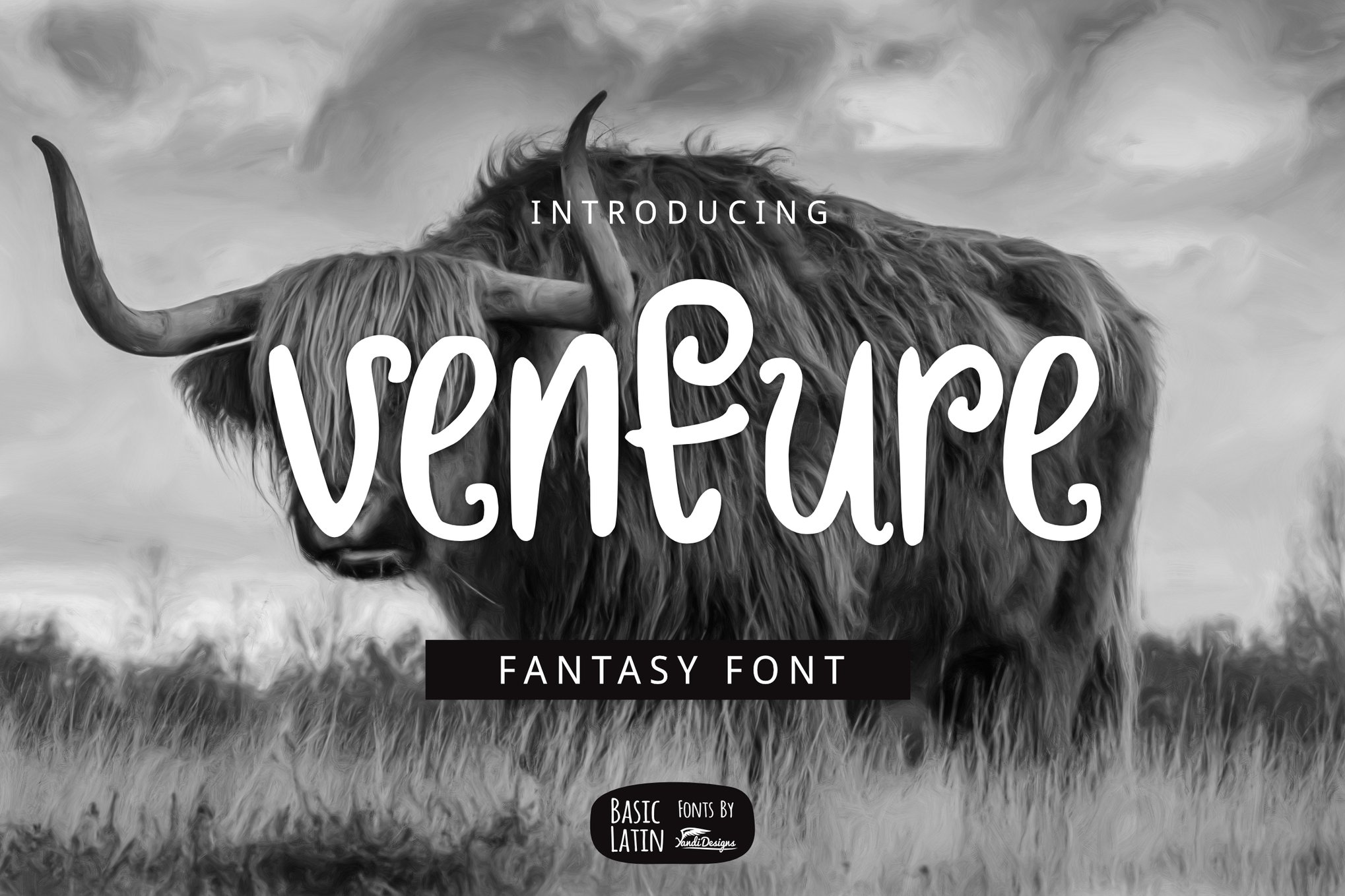
Venture Font
Venture Font is perfect for various design applications including startup company branding, investment firm logos, entrepreneurial event materials, business accelerator signage, venture capital presentations, innovation hub communications, tech startup websites, business incubator programs, entrepreneurship conference graphics, and progressive business development services. This dynamic typeface excels in projects requiring entrepreneurial energy and forward-thinking appeal that captures the ambitious spirit and calculated risk-taking of successful business ventures.
What makes Venture Font so exciting is its powerful embodiment of entrepreneurial ambition and business innovation through letterforms that suggest forward momentum, strategic thinking, and the confident energy of successful ventures. The font features dynamic angles that evoke growth trajectories, bold proportions that communicate confidence and determination, and progressive character details that reflect the innovative mindset required for successful business development. Its distinctive entrepreneurial character and ambitious appeal make it perfect for business brands seeking to communicate vision, growth potential, and the kind of strategic thinking that transforms ideas into successful enterprises.
Venture Font family includes multiple progressive weights and business-focused variations that enhance its versatility for different entrepreneurial applications. Each style maintains the font's signature ambitious character while providing options for various business development design approaches. The family also features business-themed decorative elements, growth symbols, and success indicators that can be combined with the letterforms to create cohesive venture capital design systems.
Whether you're developing startup brands, investment communications, or entrepreneurial services, Venture Font Free Download provides dynamic typography that inspires confidence and celebrates the transformative power of business innovation and strategic risk-taking. This typeface transforms ordinary communications into compelling investment propositions that promise growth, success, and profitable returns. The font's ambitious appeal makes it particularly effective for venture capital firms, startup accelerators, and business development services targeting entrepreneurs and investors who appreciate strategic thinking and growth potential.
Venture Font stands out by delivering authentic entrepreneurial energy that feels connected to real business success rather than artificial startup theming. Its carefully designed progressive proportions and ambitious details ensure that designs feel genuinely connected to successful venture culture and business innovation. From startup pitch decks to investment firm branding, this font provides designers with tools to create communications that celebrate entrepreneurial spirit and inspire confidence in business ventures through dynamic, success-driven typography that captures the essence of strategic business development.